25 Bold Canva Fonts
There is no way a design is completed without a bold font. When we mention fonts, Canva is the main platform for them. Why? Well, it’s free and allows you to create anything from the various templates it offers.
But with countless bold fonts available on Canva, it can be hard to find the one that goes with the rest of the project.
To help you out, I will be sharing a list of 25 bold Canva fonts. You can use these fonts to create beautiful projects that will help you capture your target audience.
Let’s take a look at the list!
25 Bold Canva Fonts
1. Brice Bold Condensed:
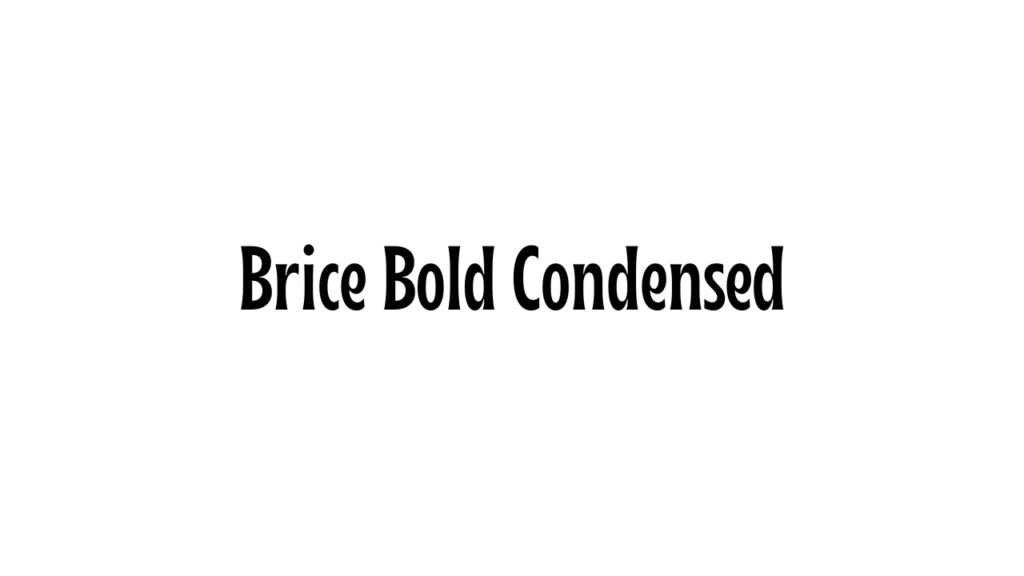
2. Anton:
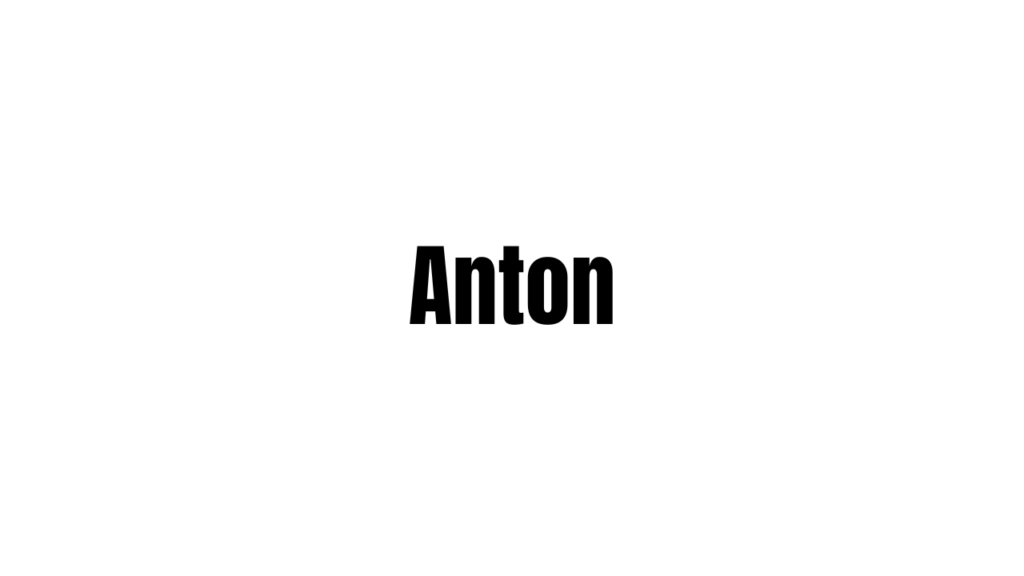
3. Chewy:
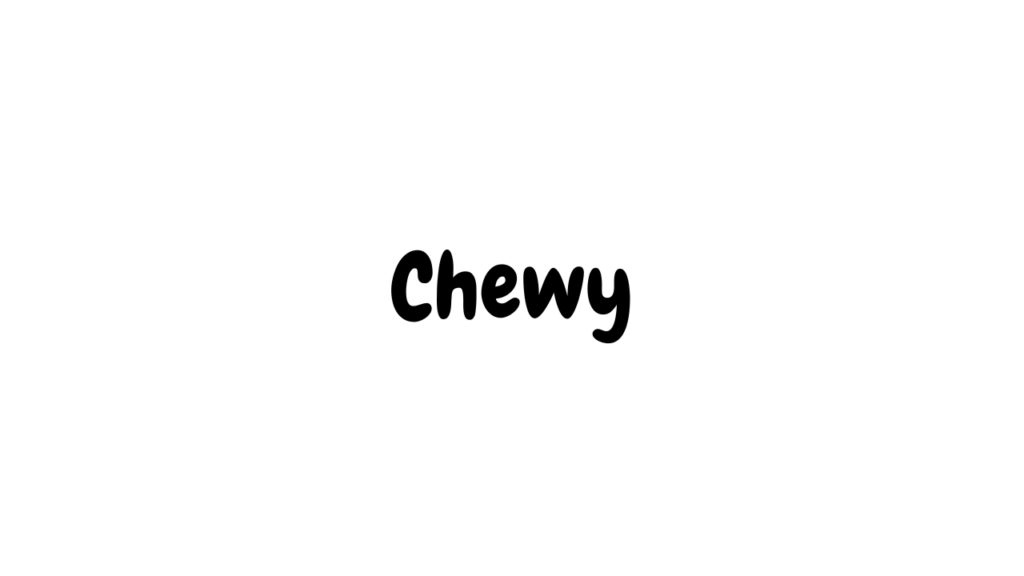
4. More Sugar:
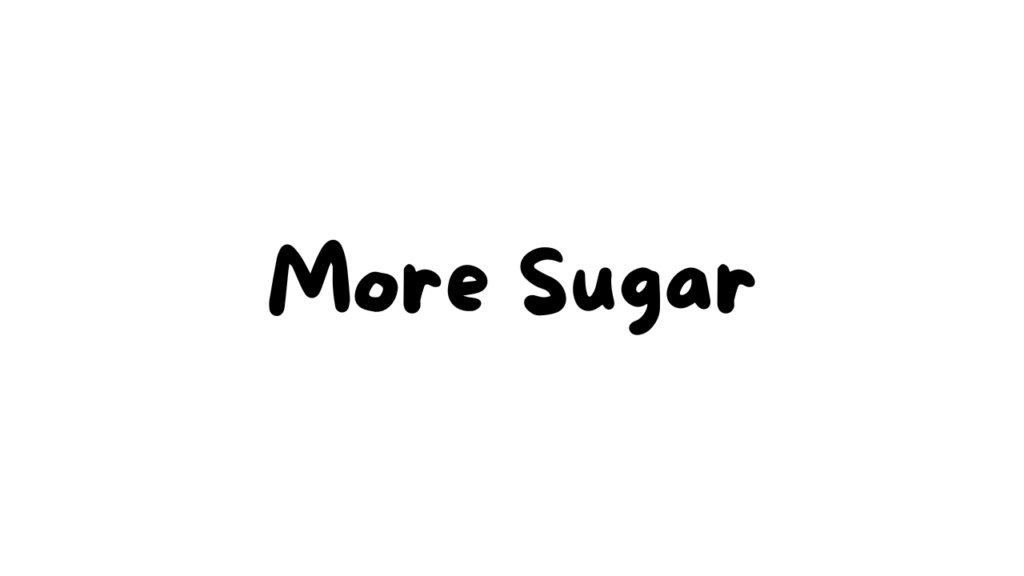
5. League Spartan:
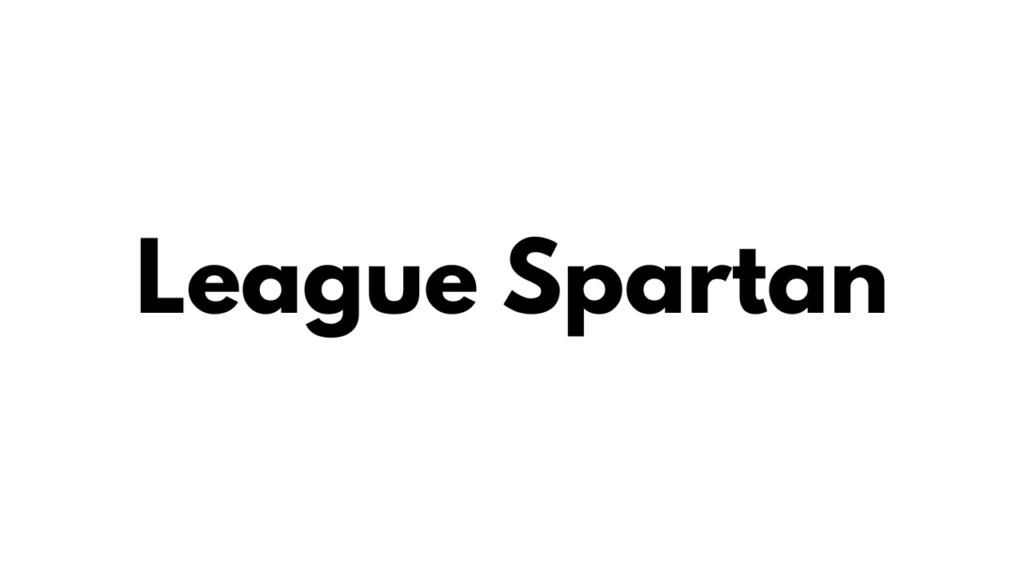
6. Archivo Black:
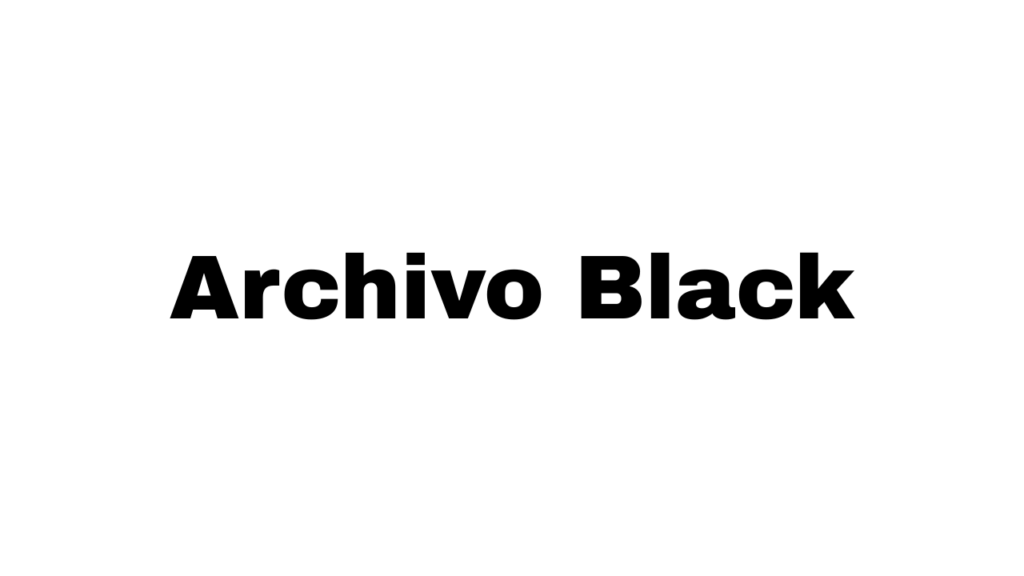
7. Gagalin:
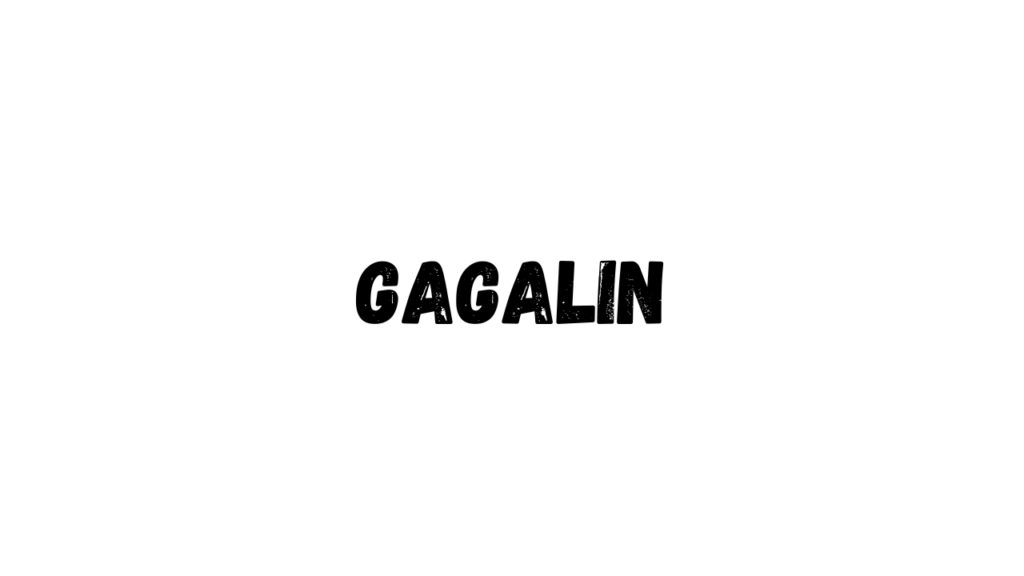
8. Etna Sans Serif:
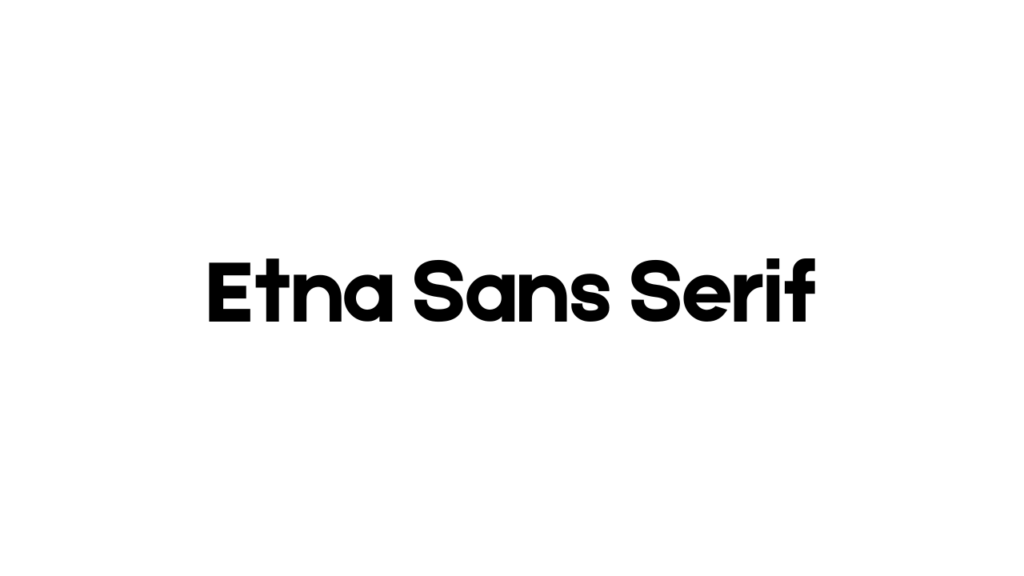
9. Lilita One:
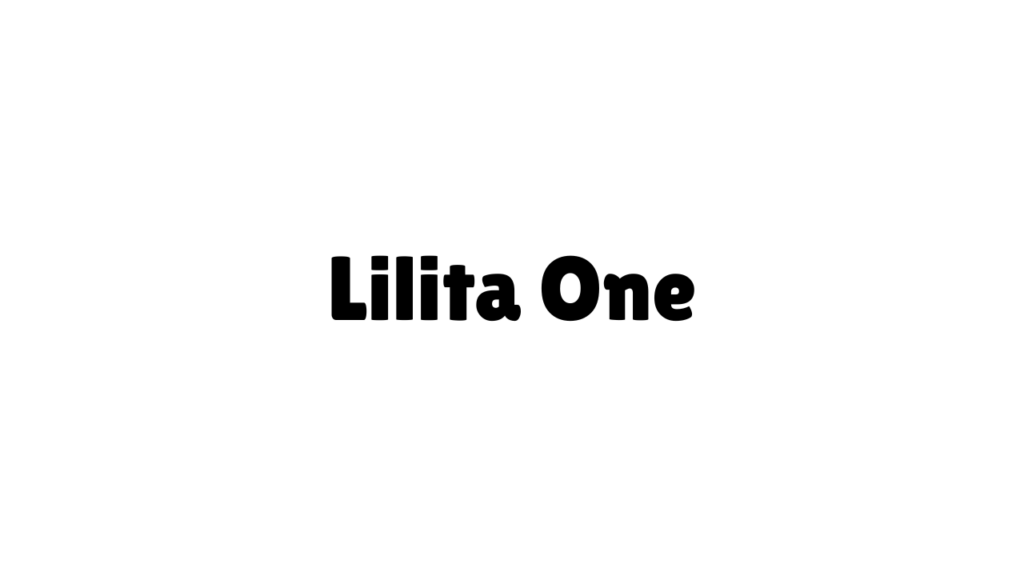
10. Norwester:
11. Impact:
12. Blaka:
13. Marykate:
14. Lovelo:
15. Alfa Slab One:
16. Bernoru:
17. Brusher:
18. Borsok:
19. Barabara:
20. Odibee Sans:
21. Waterlily:
22. Rubik One:
23. Sifonn:
24. Fredoka:
25. Stencil:
Conclusion